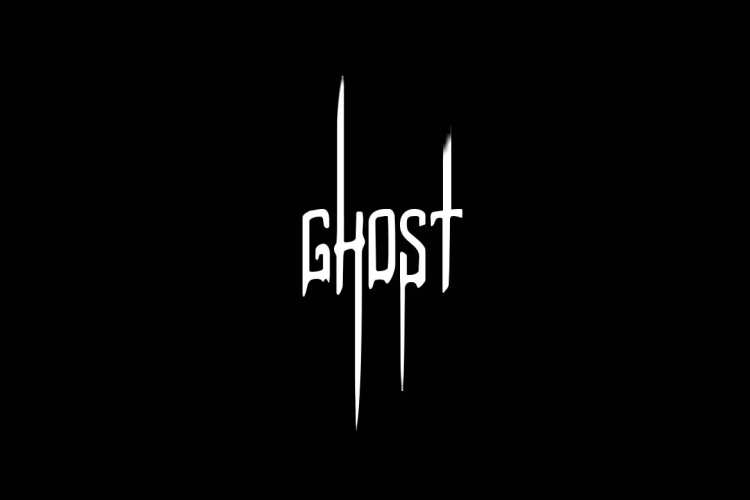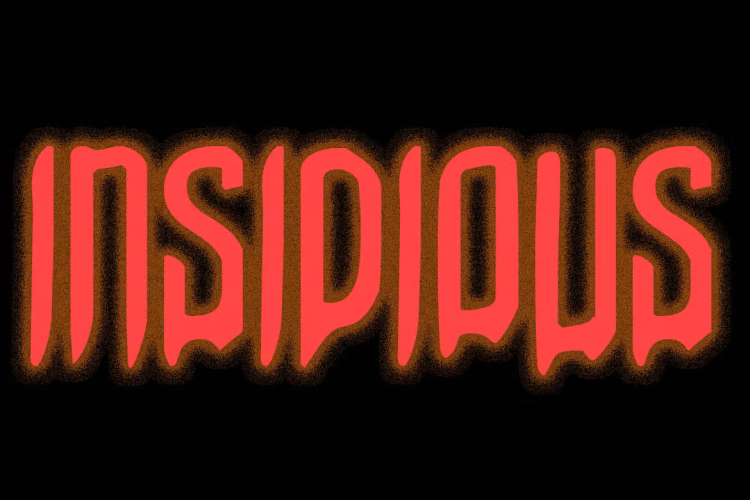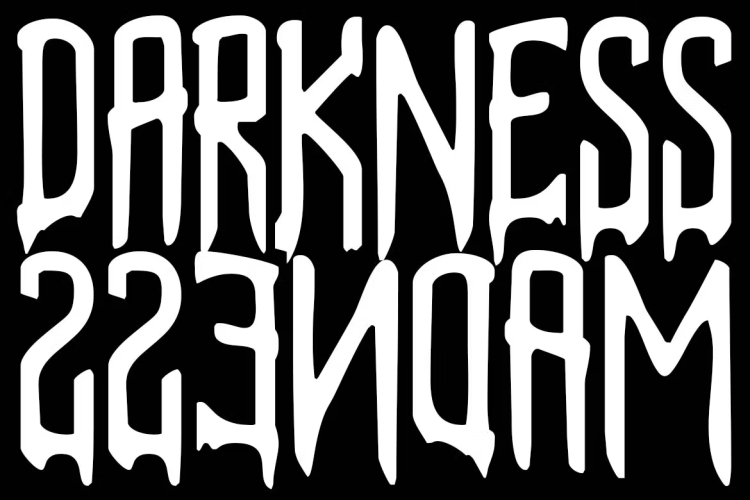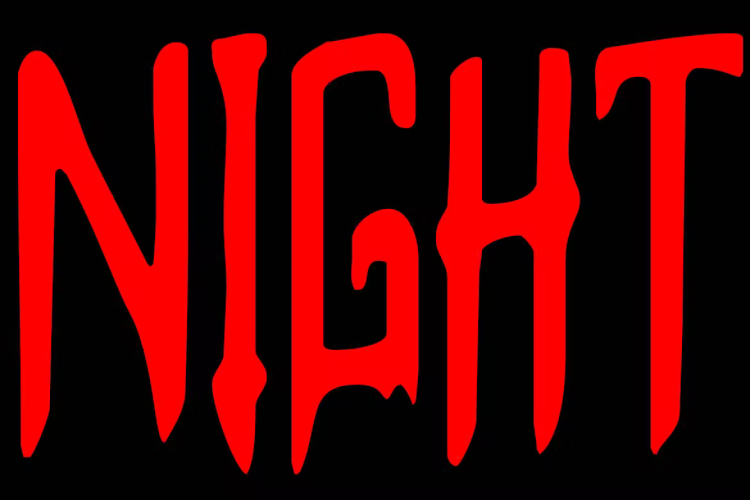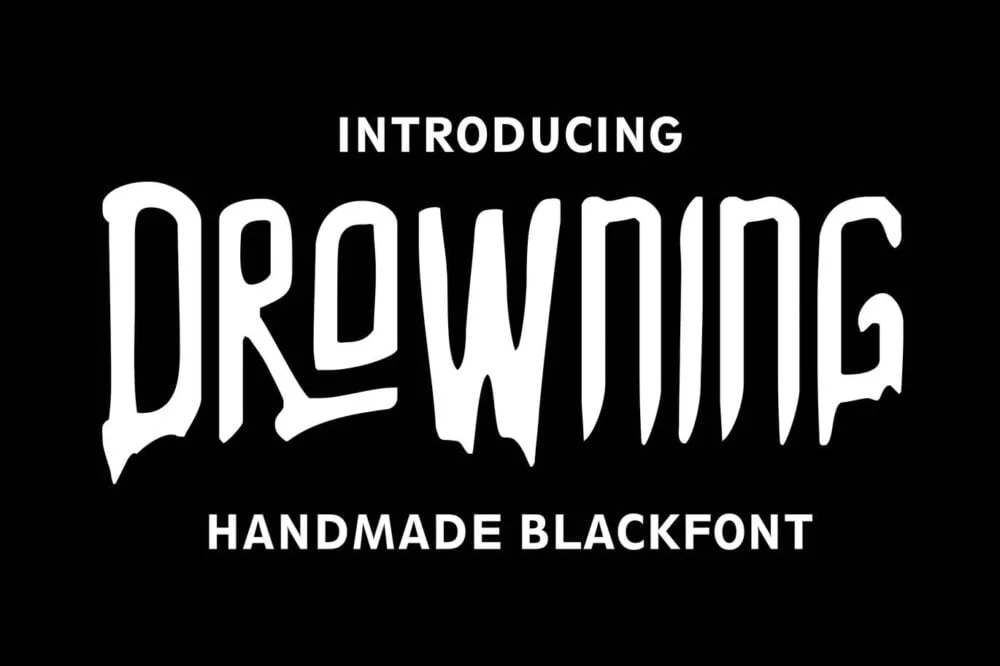
DROWNING Font
Drowning Font is just a horror font. If you like something dark design, just use this font for your project. this font comes with an extra horror look when you see it. thanks
DROWNING Font is a Decorative Fonts font that brings a professional and versatile look to your projects. Drowning Font is just a horror font.